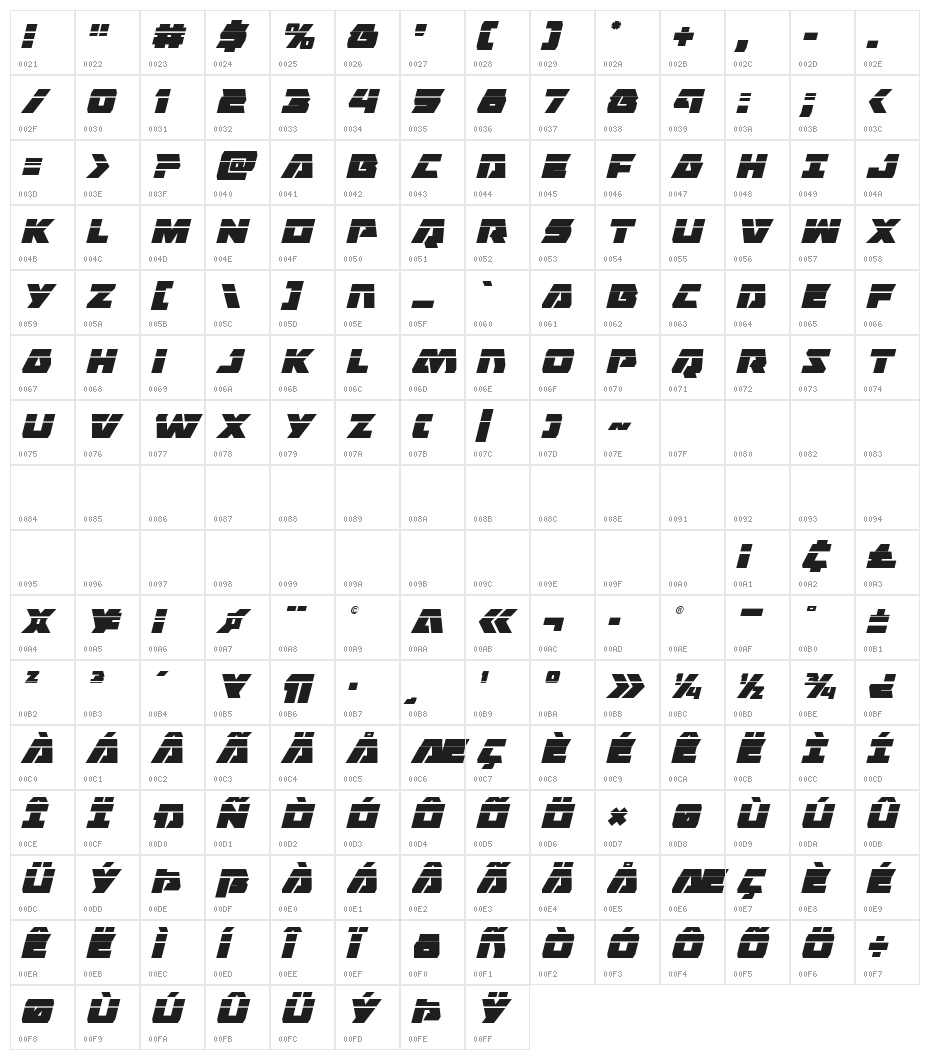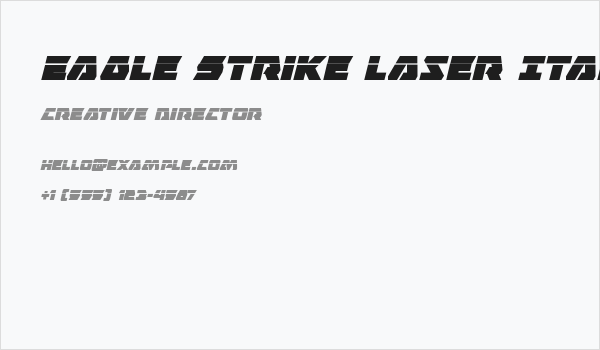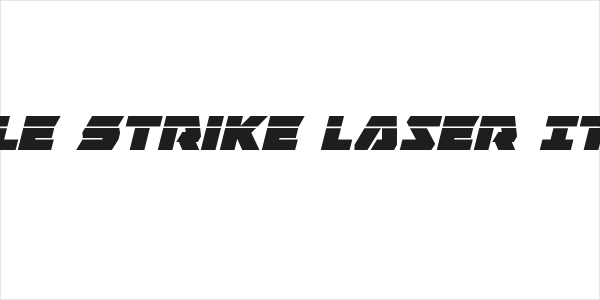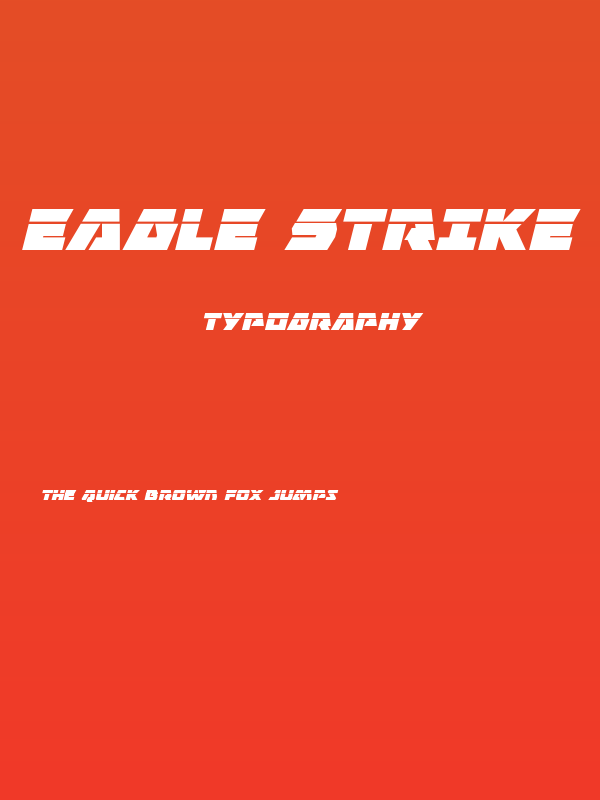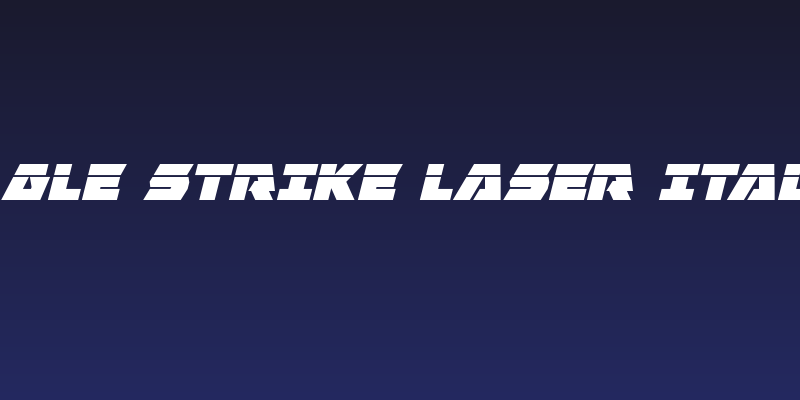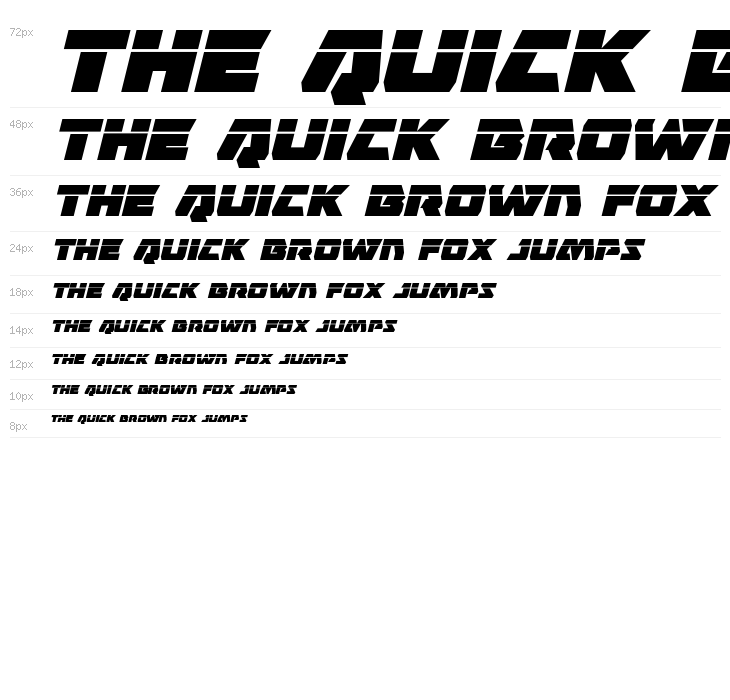
Eagle Strike Laser Italic Font
Eagle Strike Laser Italic Description
This font features a bold, angular design with a futuristic and aggressive aesthetic. The characters are sharply cut with a distinct slant, giving them a dynamic and energetic feel. The uppercase and lowercase letters maintain a consistent style, with strong geometric shapes and a sense of movement. The numbers and special characters follow the same design principles, ensuring uniformity across the font. The overall appearance is striking and modern, making it suitable for projects that require a bold statement.
| Proposed Projects | Ideal for sports branding, video game titles, sci-fi movie posters, and dynamic logo designs. |